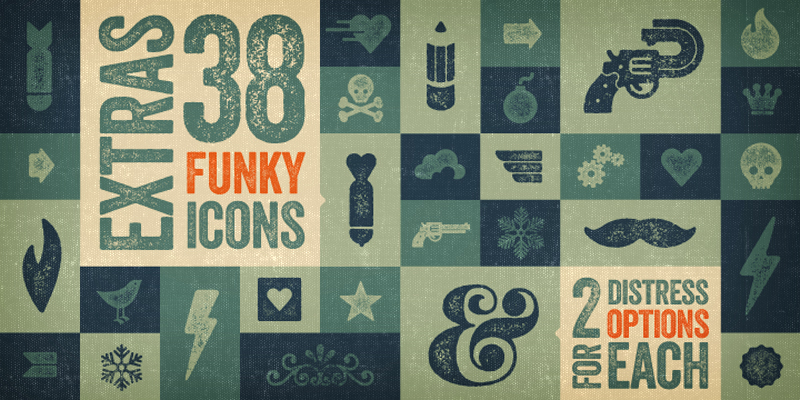
Veneer Extras from Yellow Design Studio is a funky set of high resolution hand-crafted letterpress dingbats. Because they're remarkably detailed, they looks great even at large sizes. View and download the entire Veneer letterpress font family here: http://www.myfonts.com/fonts/yellow-design/veneer/ TIP: In Photoshop Veneer may look best with anti-aliasing set to “smooth”. |